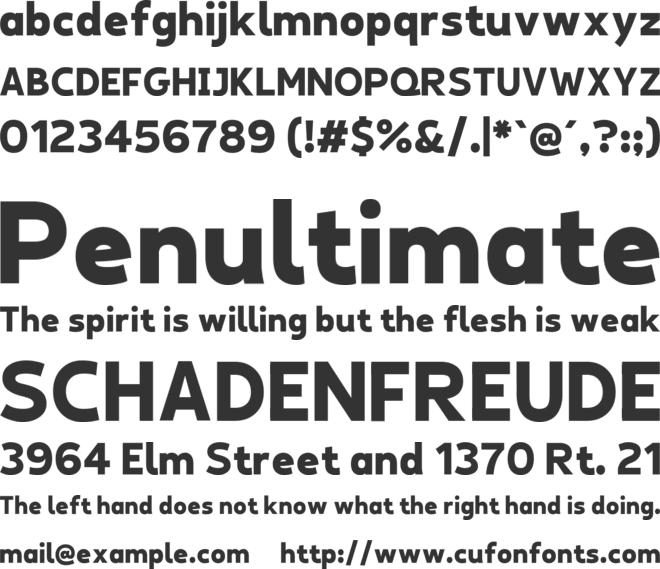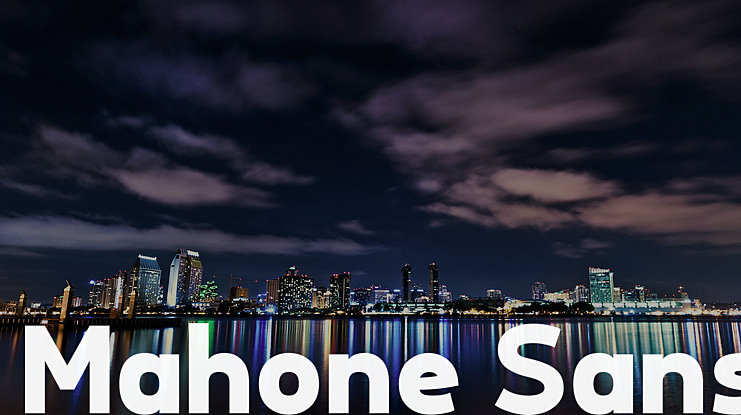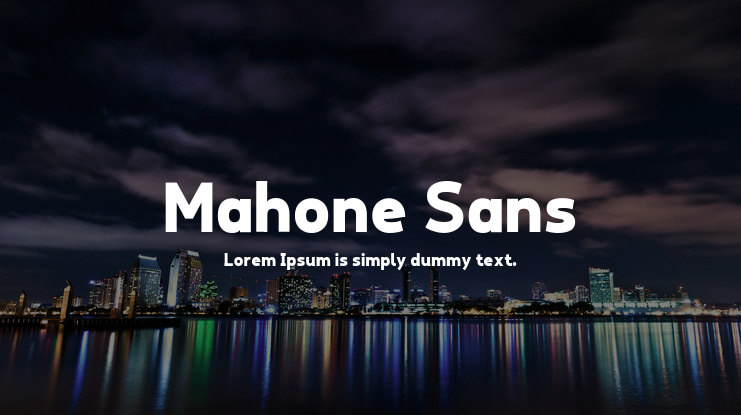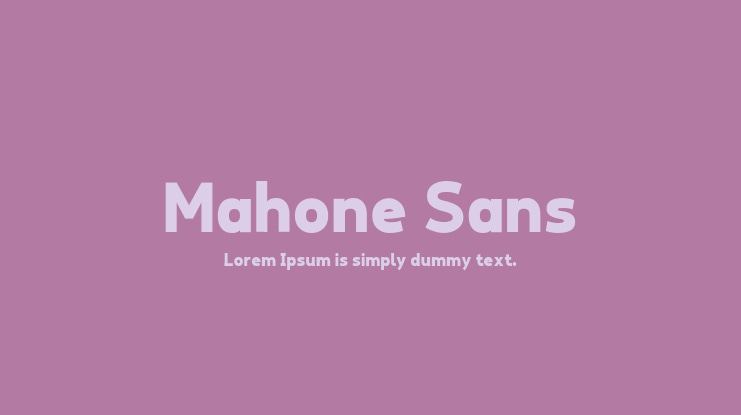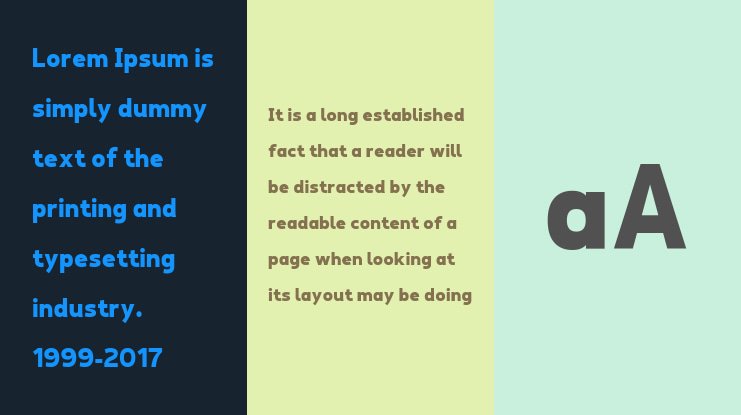
This typeface is a free modern sans serif font with some little glyphic style. Soon, it will be a variable font. Also, there are about 1900 glyphs in this font, it supports 137 languages. Mahone is suitable to use for all purpose for your logo lettering, logo, label, packaging, sticker, branding and many more.